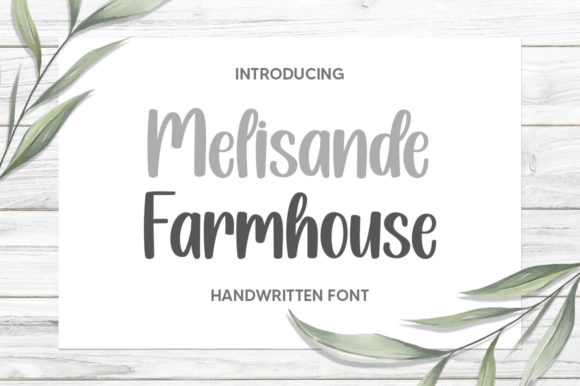
Introducing Melisande Farmhouse Font, a calligraphy dream come true! Step into a world of elegance and charm with this exquisite script font, crafted with love by Graphix Line Studio. Melisande Farmhouse is not just any font; it's an experience, an expression of your creativity that will leave you spellbound.
With its captivating handwritten style, Melisande Farmhouse Font transcends the ordinary. It's the perfect companion for those seeking a touch of timeless beauty in their designs. Whether you're a seasoned artist or just starting your creative journey, this font will ignite your imagination and unlock endless possibilities.
Picture this: a farmhouse sign, lovingly handwritten with Melisande Farmhouse Font, adorning your porch. The intricate strokes and loops dance across the wood, inviting warmth and a sense of belonging. Or perhaps you envision elegant wedding invitations, where the font's delicate curves add a touch of romance and sophistication.
The beauty of Melisande Farmhouse Font lies in its versatility. Whether you're creating logos, social media posts, or greeting cards, this font effortlessly adapts to your vision. Its timeless charm adds a touch of class to any design, making it the perfect choice for those seeking a font that stands the test of time.
But Melisande Farmhouse Font is more than just a pretty face. It's a font that speaks to the heart, evoking emotions and creating a lasting impression. Its graceful lines and subtle details captivate the eye, inviting viewers to immerse themselves in your creations.
So, dear creative soul, embark on a journey of artistic exploration with Melisande Farmhouse Font. Let your designs bloom with elegance, your words dance with grace, and your imagination soar to new heights. Discover the limitless possibilities that await you with this enchanting font.